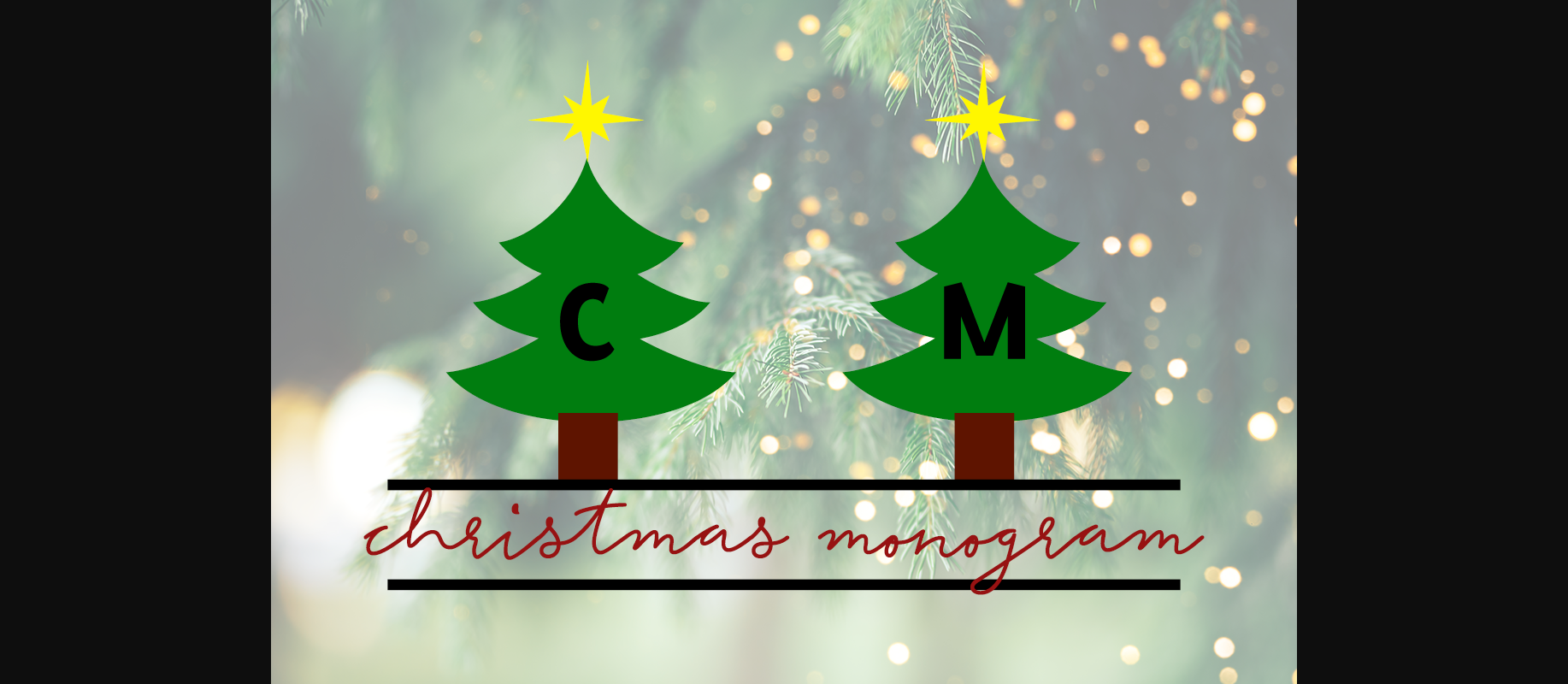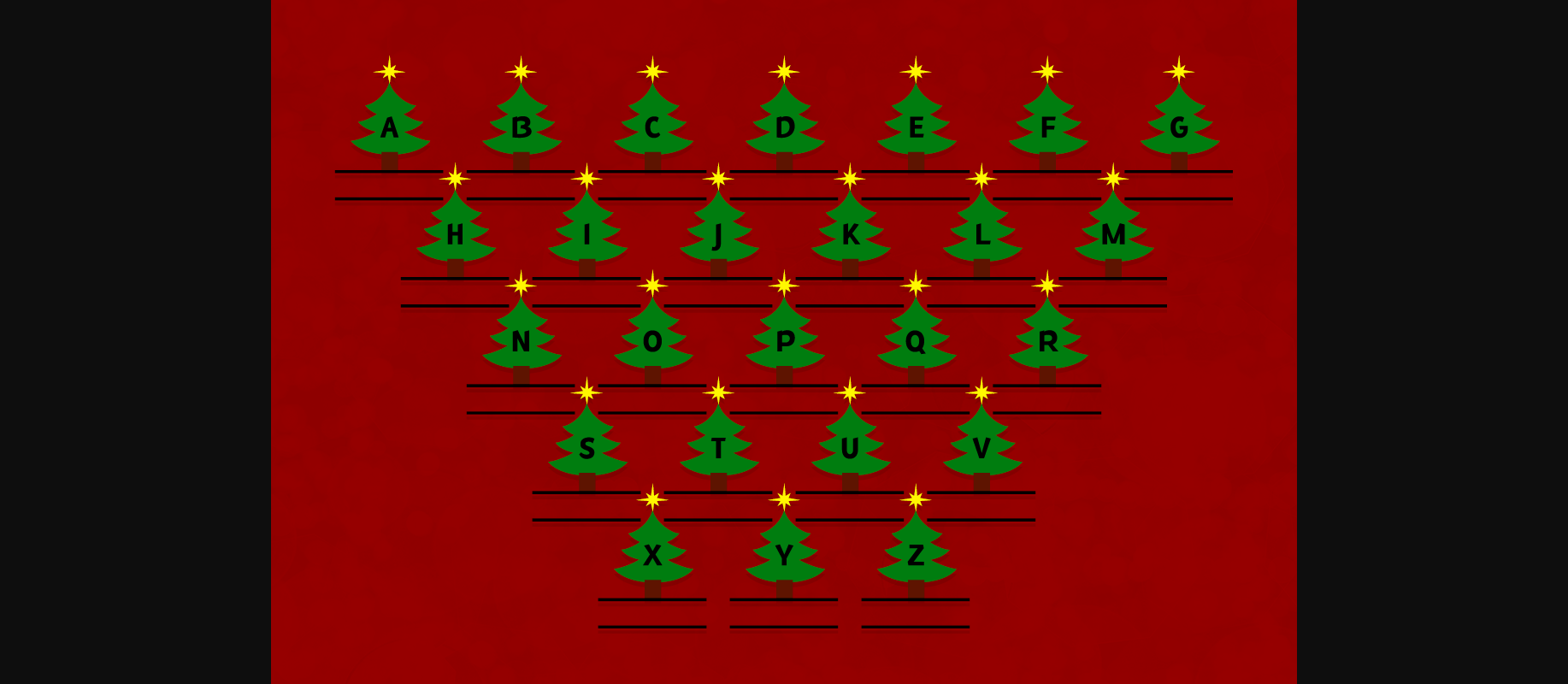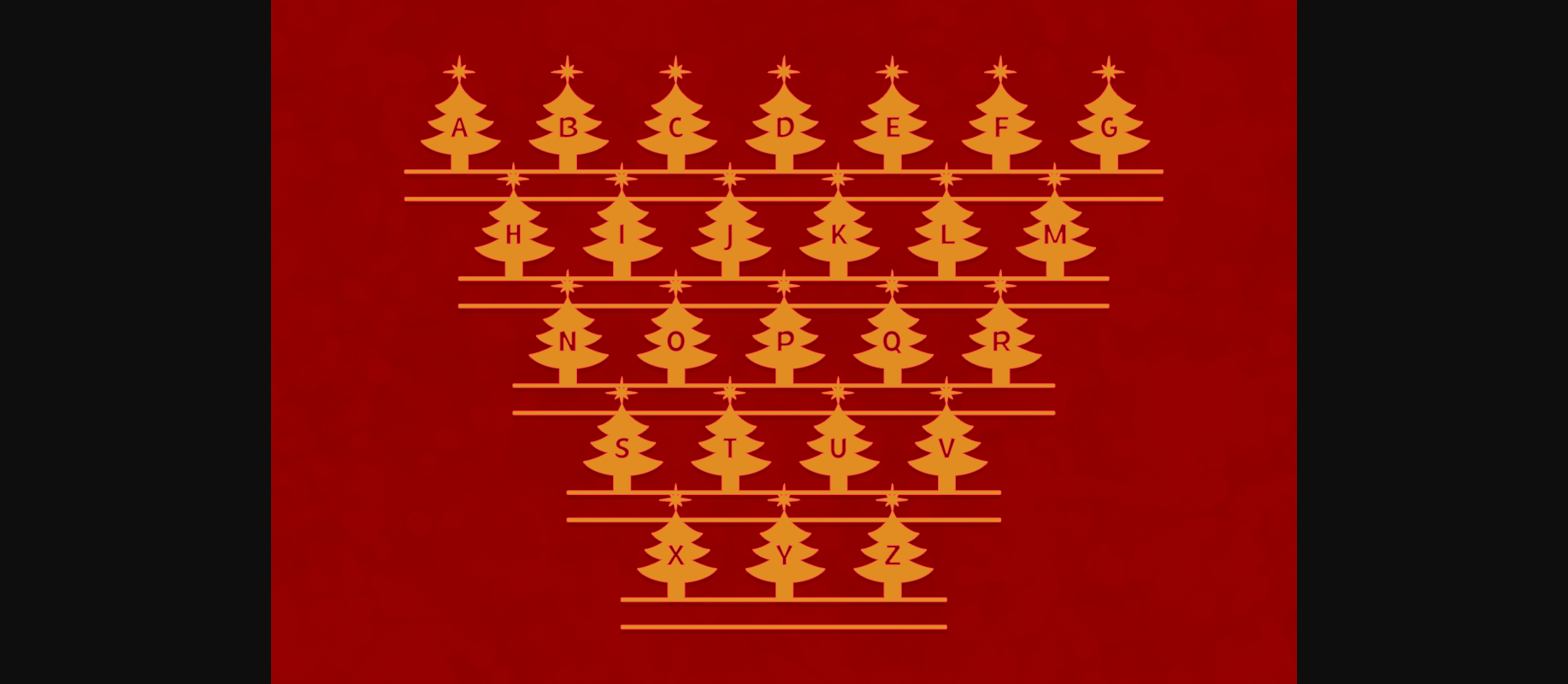
About Christmas Monogram Font
Christmas Monogram is a fun and festive typeface that was carefully crafted to create lovely, customized designs. This Christmas Tree font is perfect for adding a personal touch to holiday gift tags, as well as designing personalized mugs, stickers, prints, sublimated t-shirts and so much more! Included are both color and black & white versions of the font, as well as an SVG file, making it accessible to all crafters.